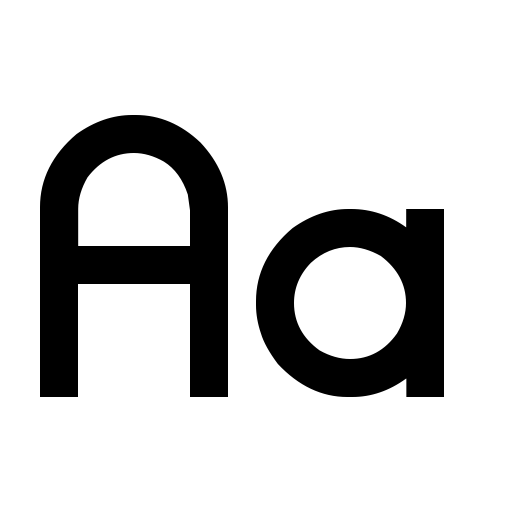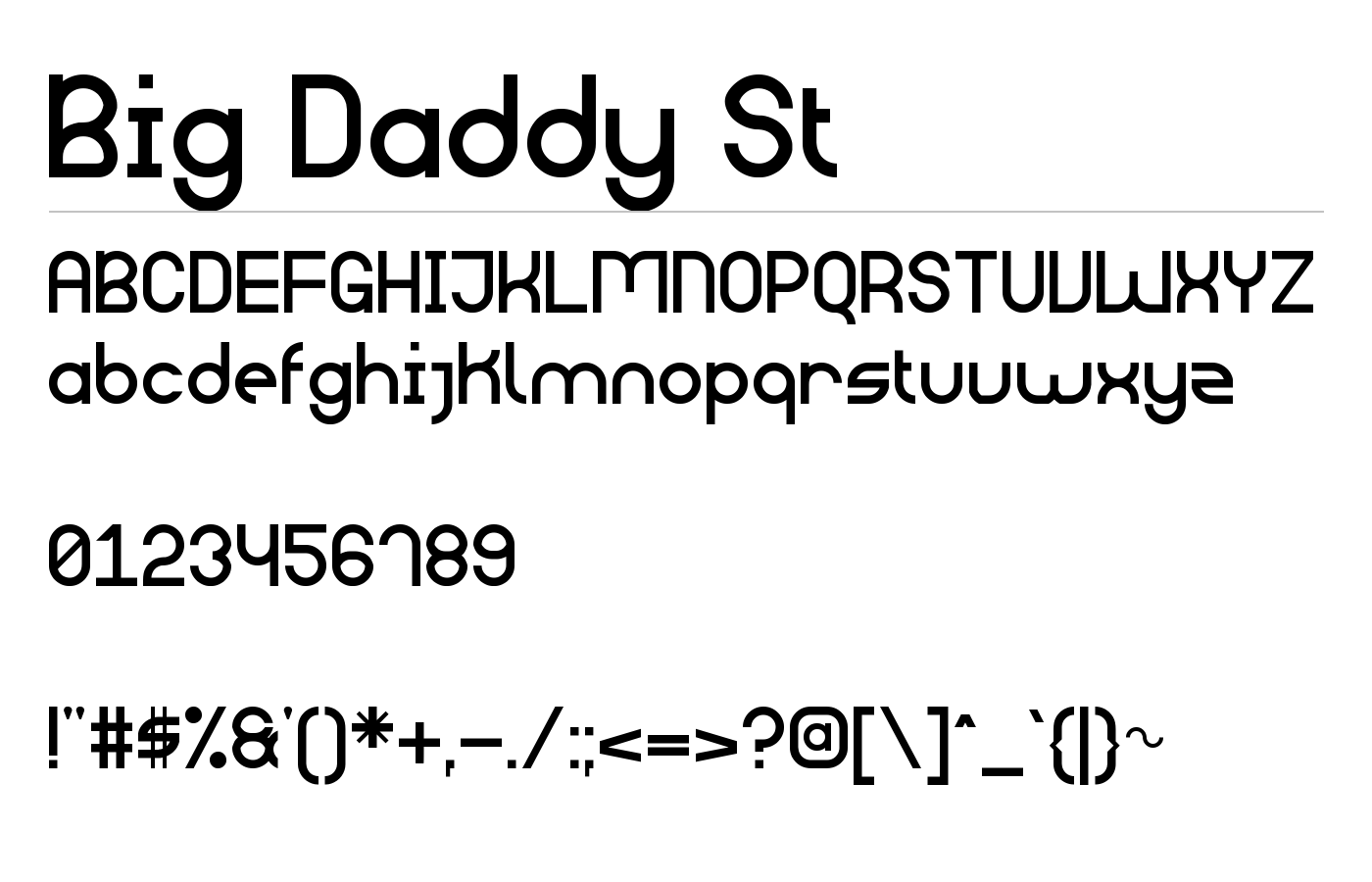
Big Daddy St is a unique sans serif font with a bold and playful personality, featuring rounded, geometric letterforms combined with quirky, unexpected details like curved stroke terminals and unusual character shapes. Its medium weight and balanced spacing make it ideal for eye-catching headlines, logos, and creative branding that seeks to stand out with a modern yet friendly vibe. This font works well in designs aiming for a distinctive, approachable look that is both contemporary and fun.
Big Daddy St Font
About Big Daddy St Font
| Font family | Big Daddy St Font |